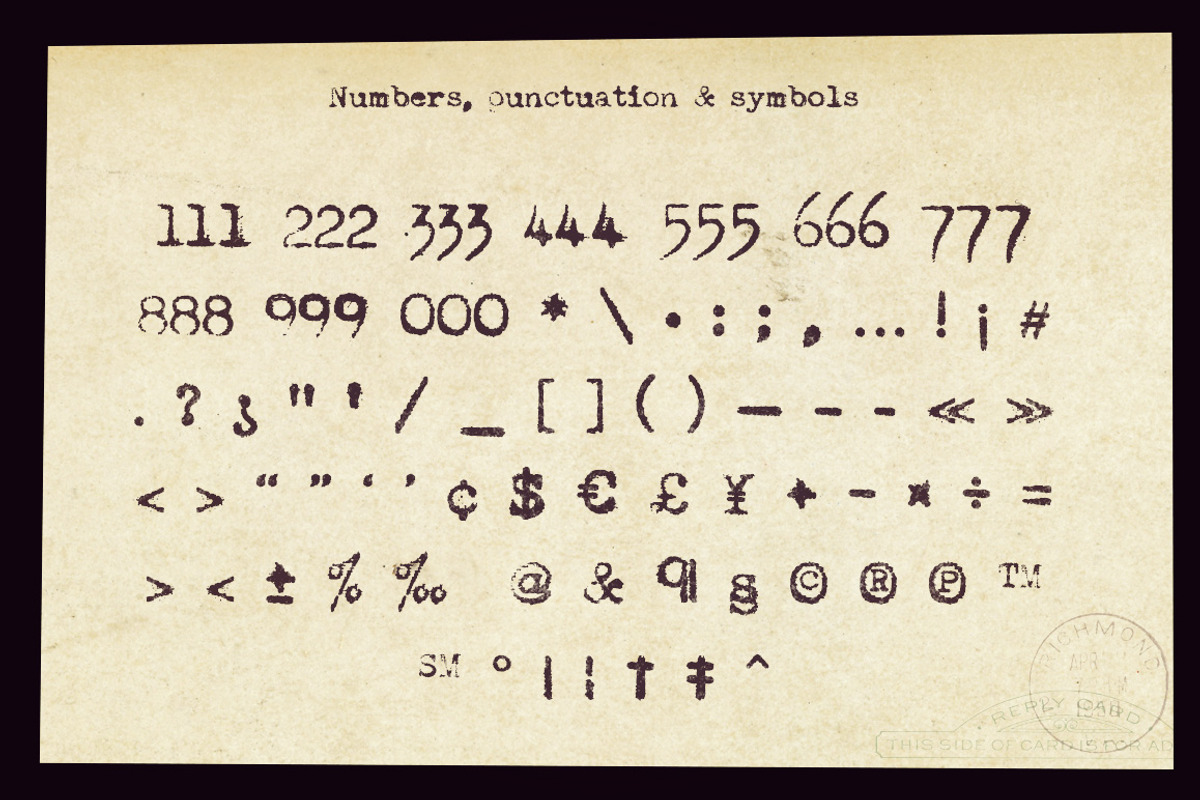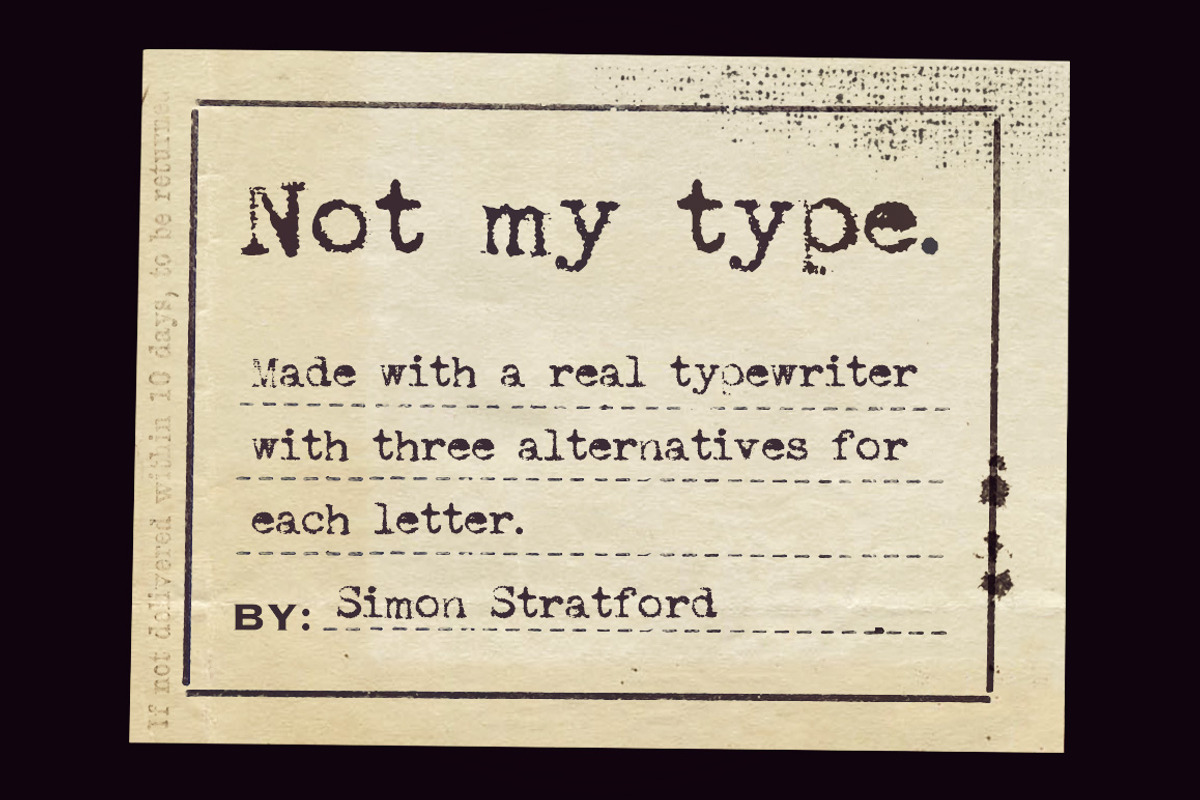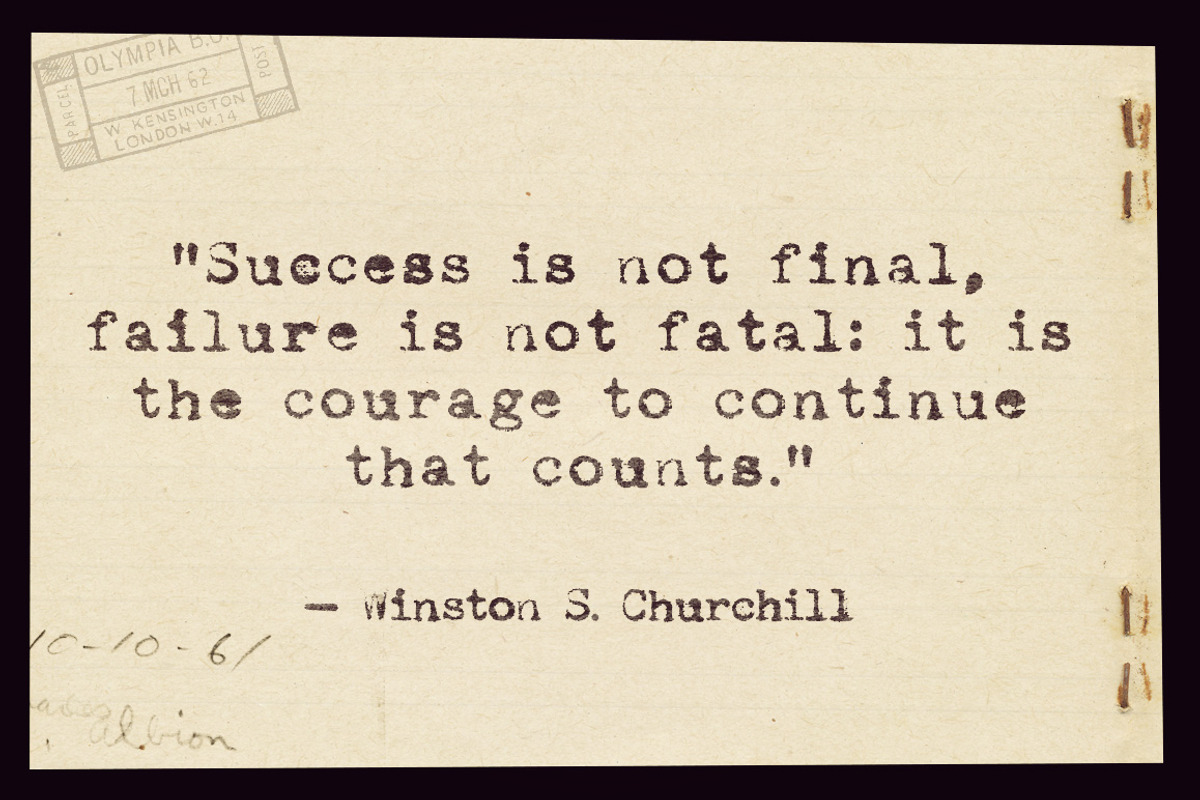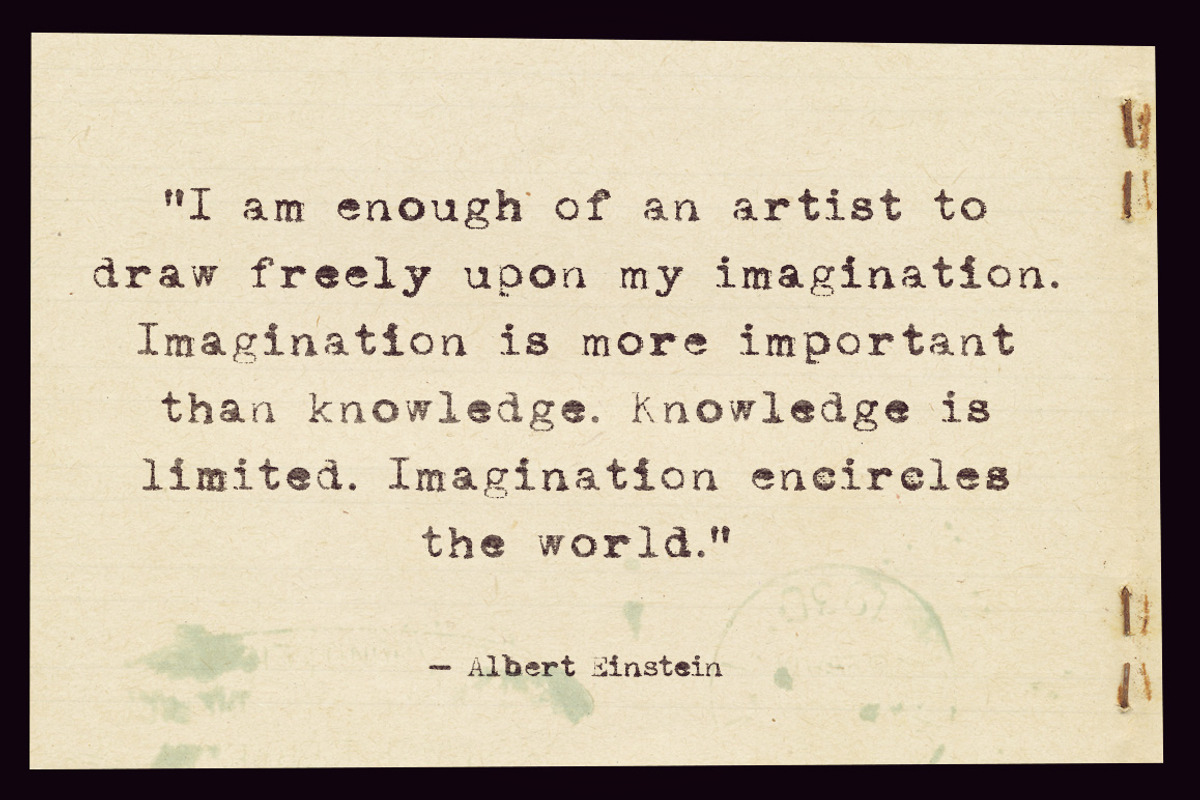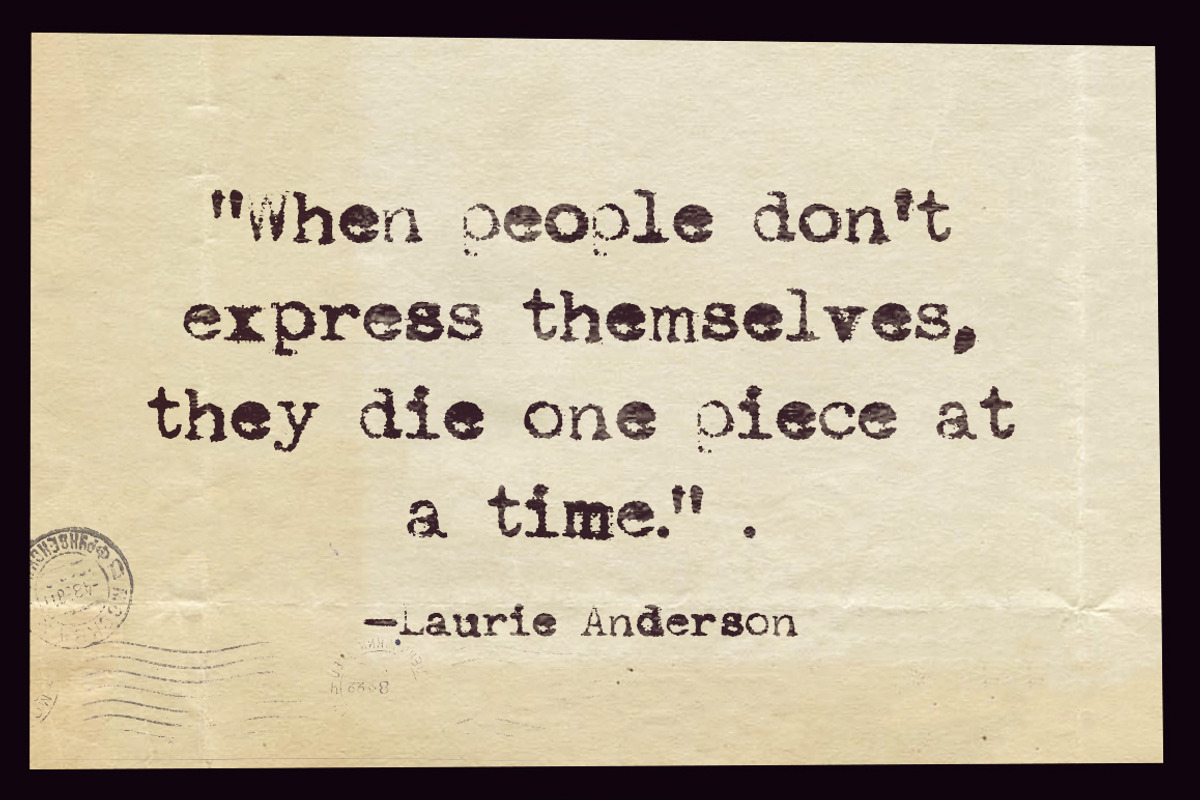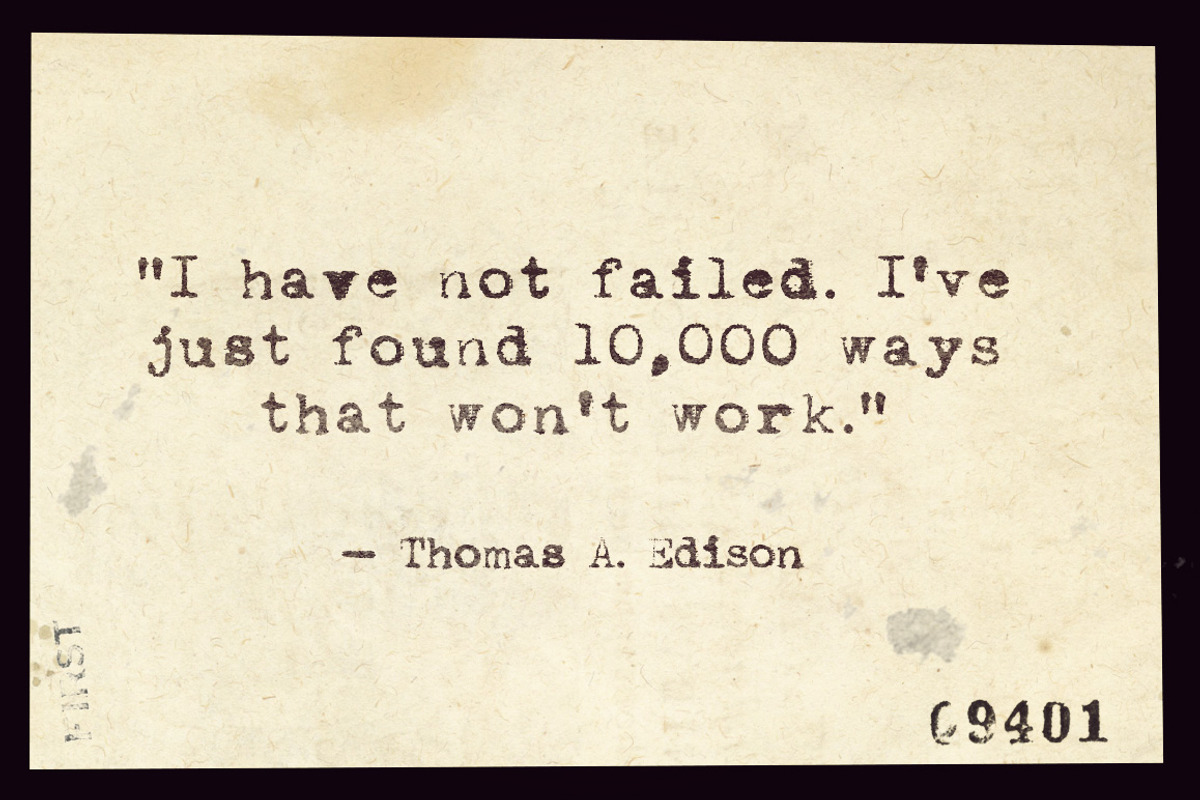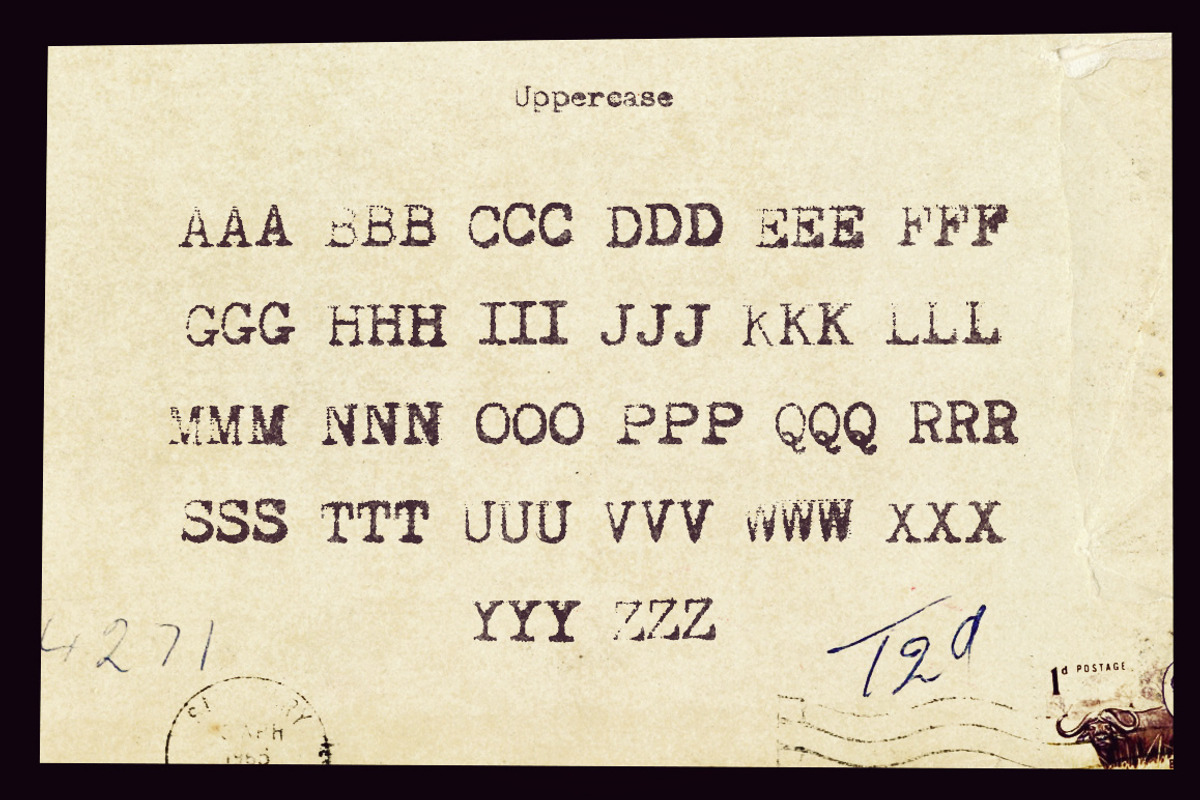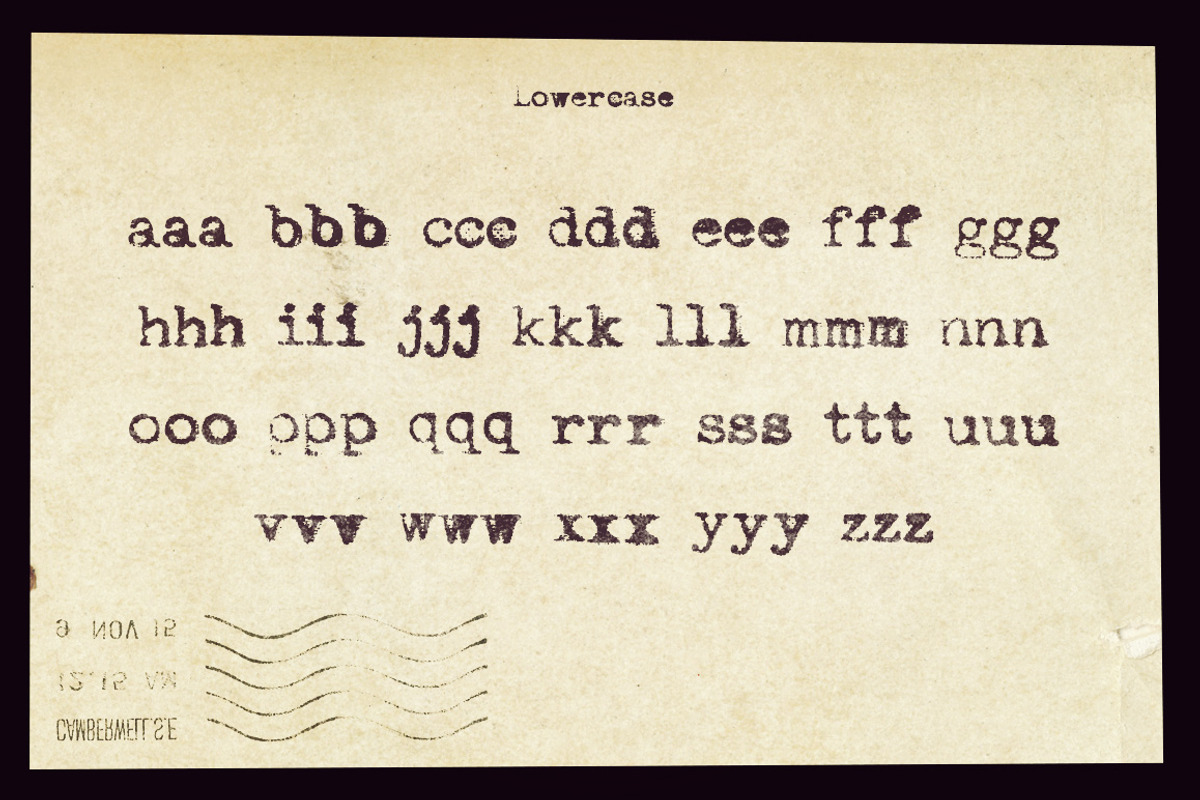
Typewriter typeface not my type
Typewriter typeface not my type by Itsmesimon is a font selected for branding, posters, packaging, typography.
- The font includes: One style Uppercase & Lowercase letters with three Alternatives Numbers with three alternatives Basic punctuation & Symbo
Why Typewriter typeface not my type is worth a look
Typewriter typeface not my type by Itsmesimon fits naturally into Branding, posters, packaging, typography.